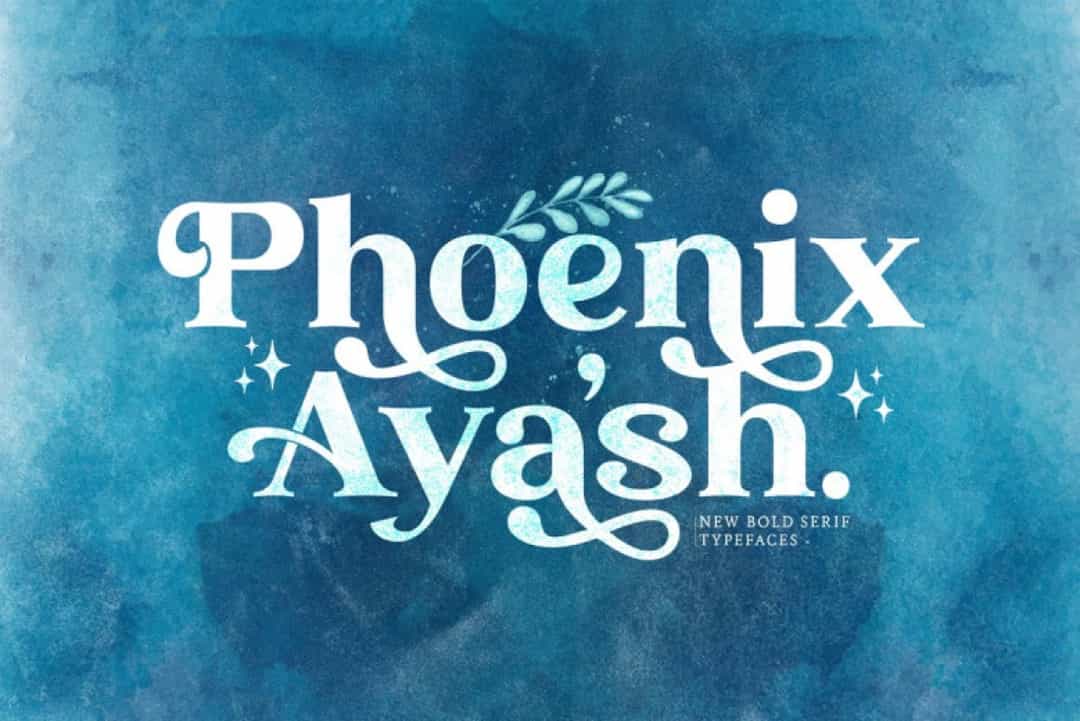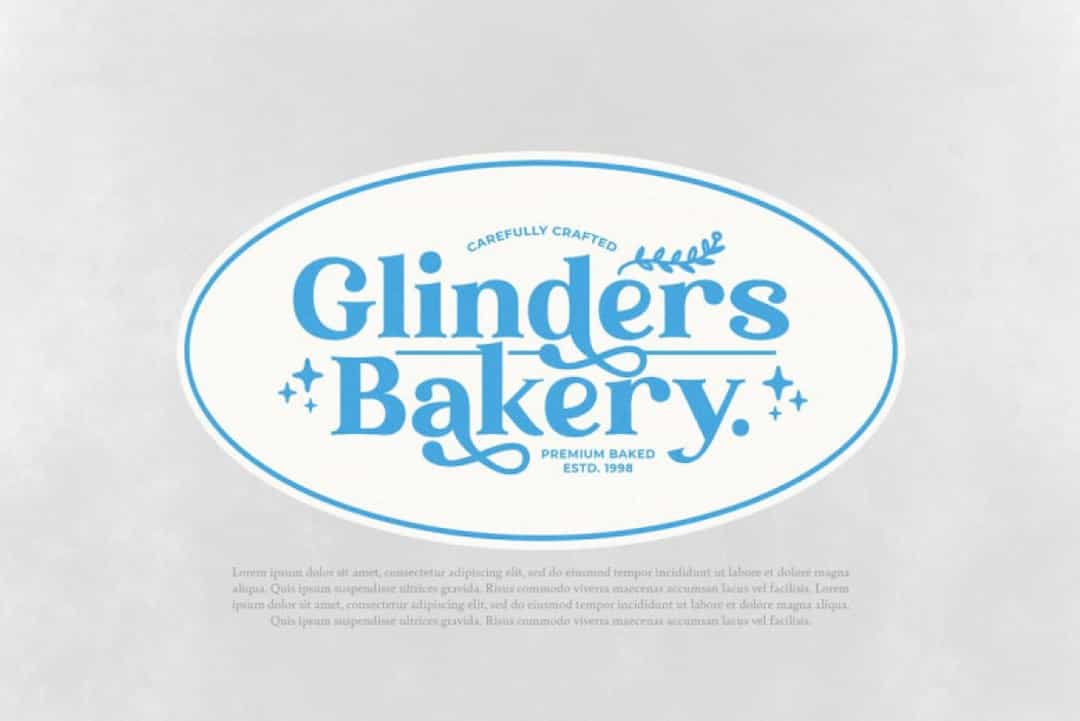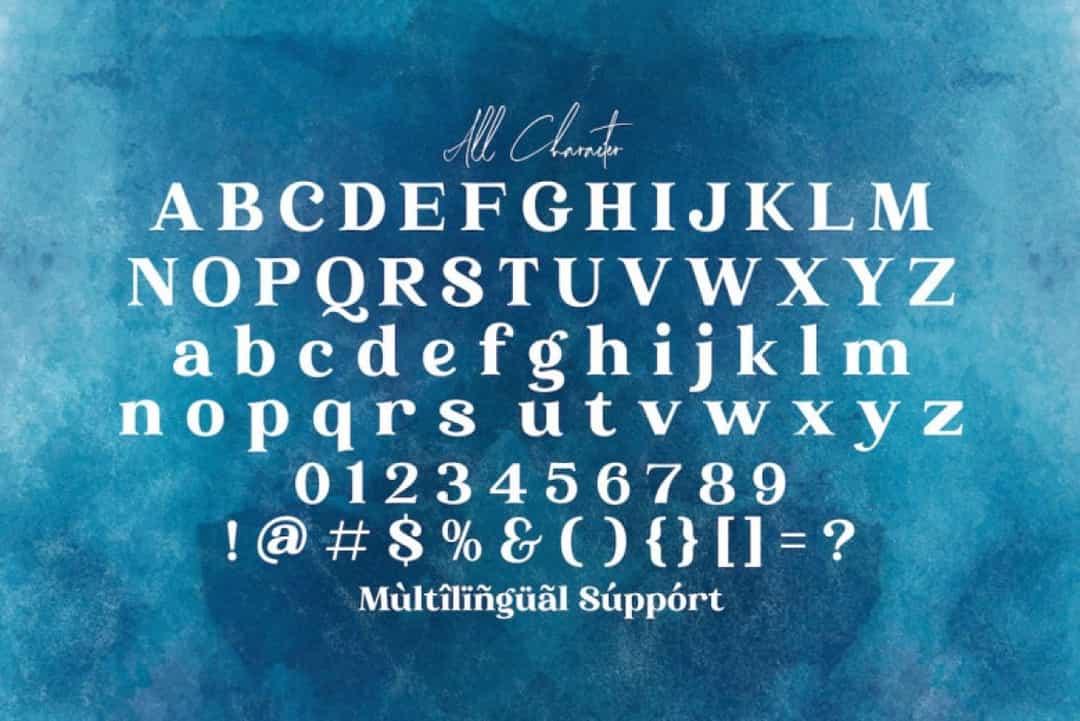
Discover Phoenix Ayash Font, part of the Serif collection—a versatile and unique font perfect for adding a personal touch to your projects. Download it for free and enjoy crafting designs with style, from invitations to social media posts. This font is available exclusively for personal use, giving you the freedom to create without limits. Unlock your creativity with Phoenix Ayash Font today!
Phoenix Ayash is an iconic and striking serif font, suitable for many projects and easily integrated with diverse ideas and tasks. Add this typeface into your creative arsenal, and watch how its bold, authentic appearance stands out!